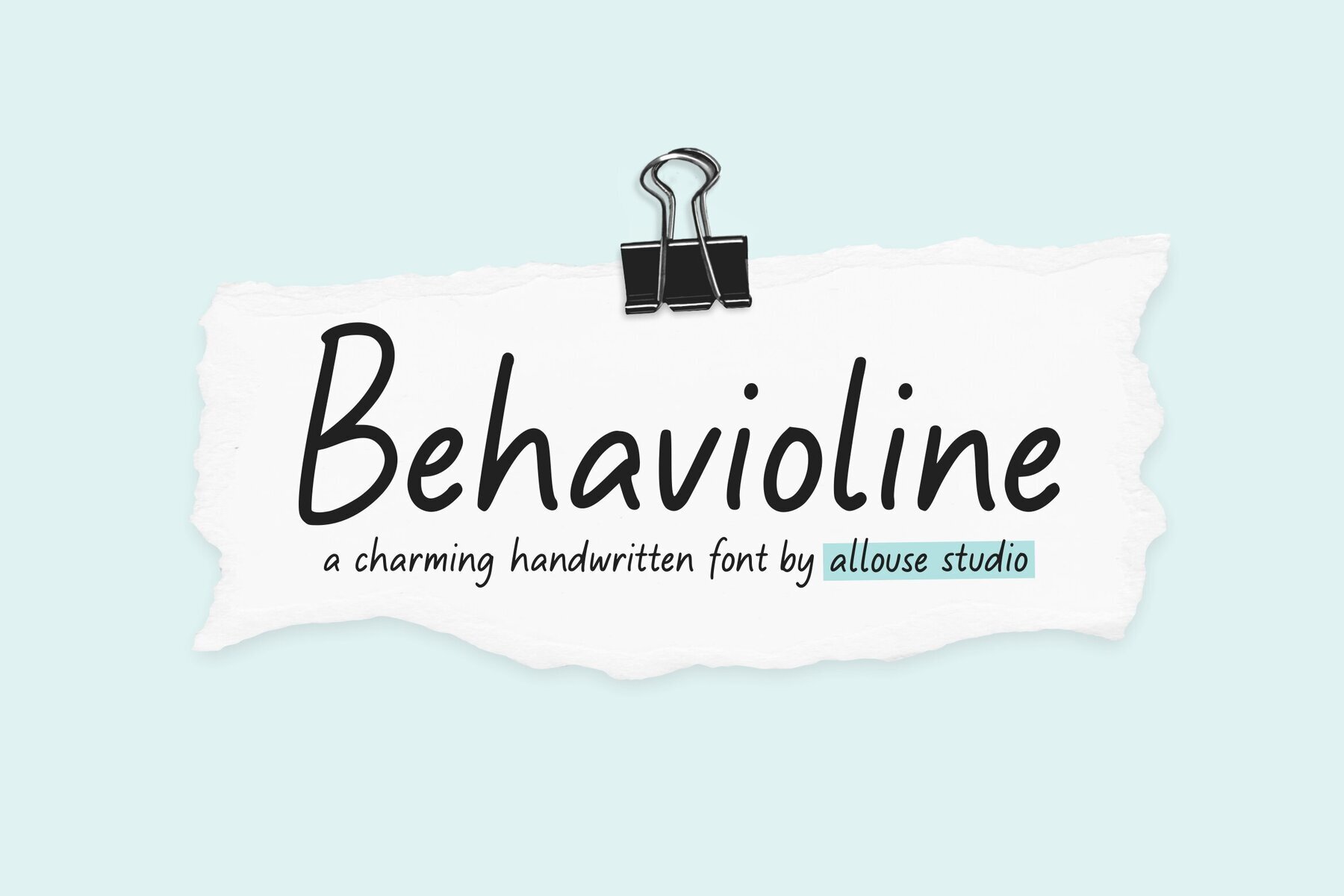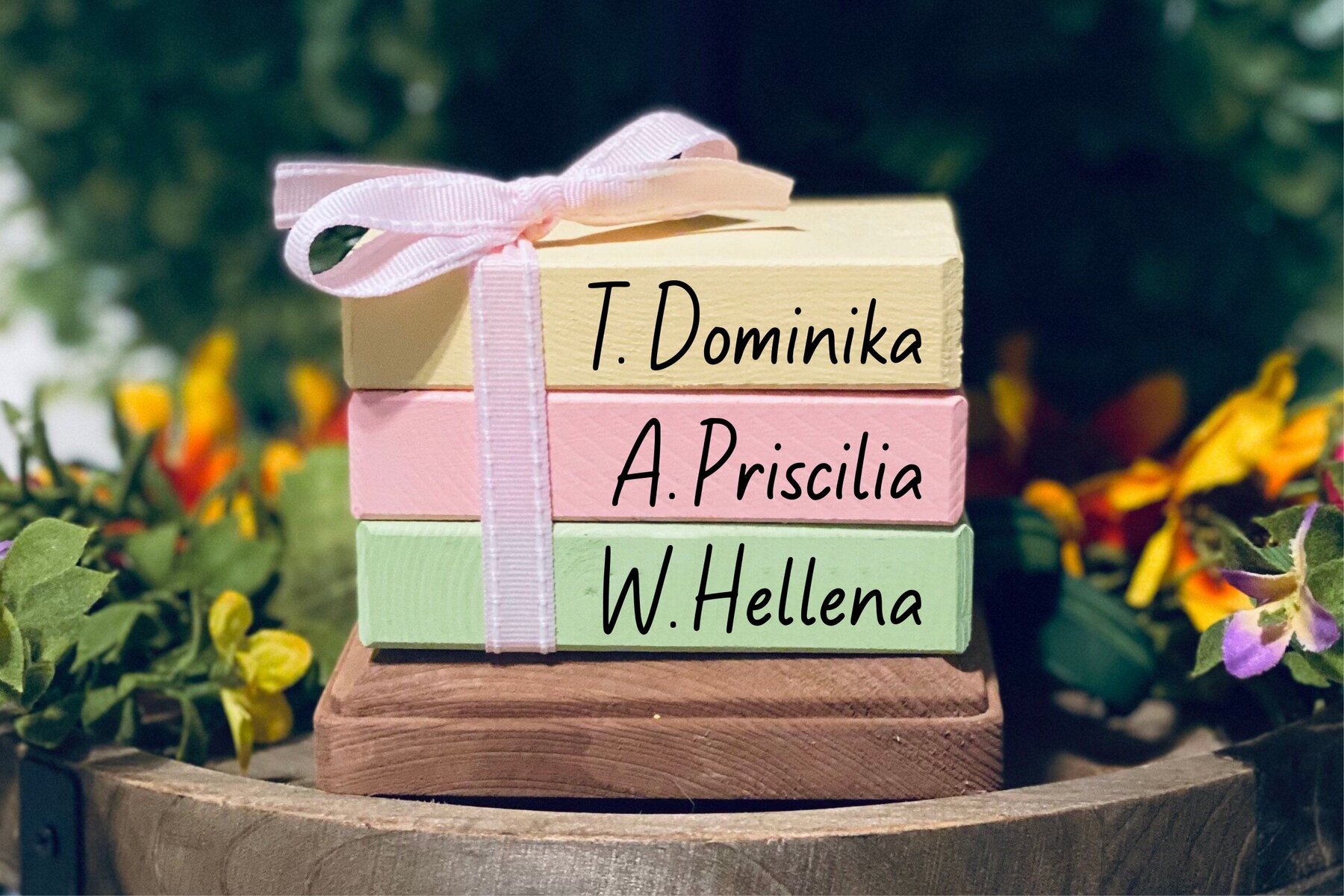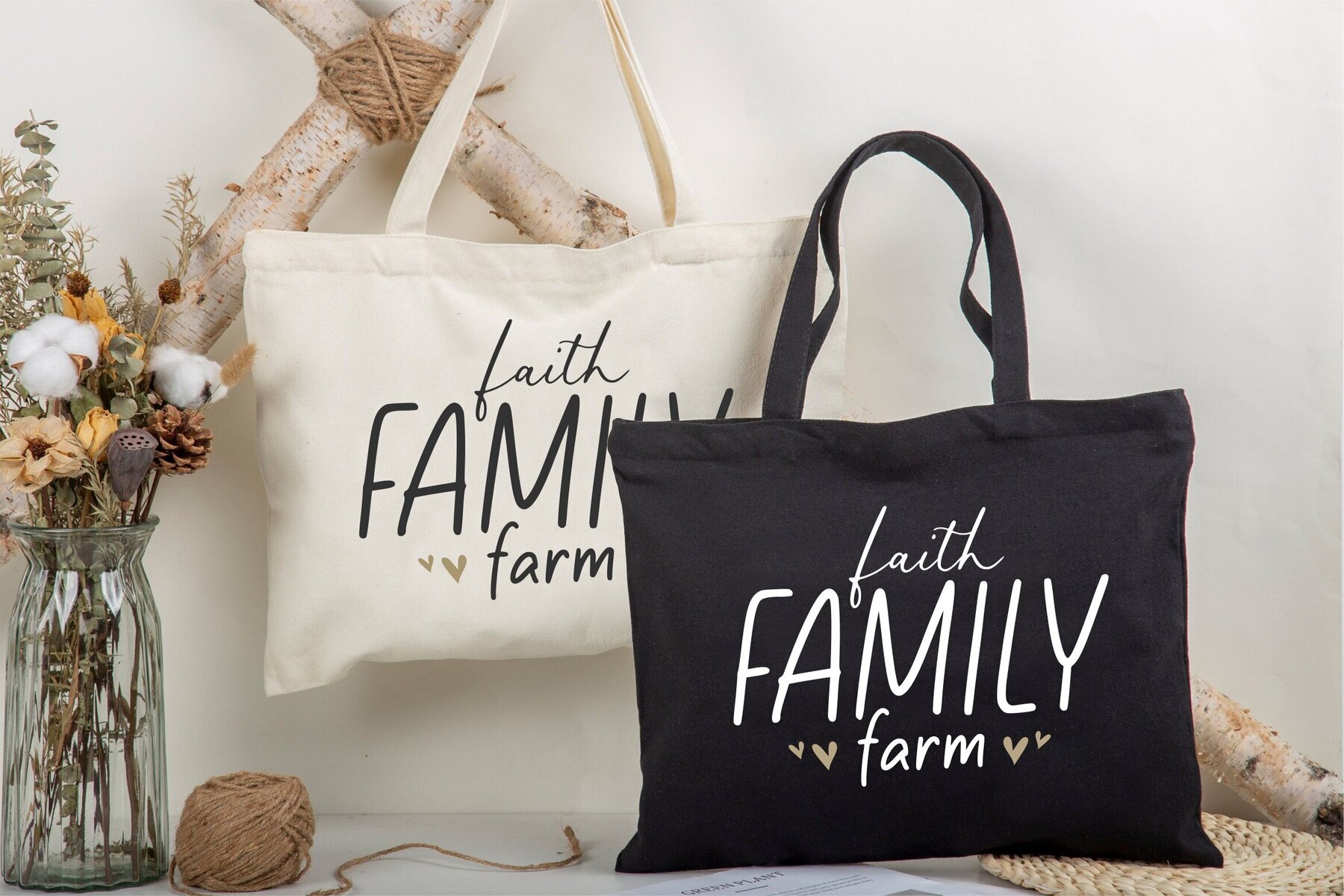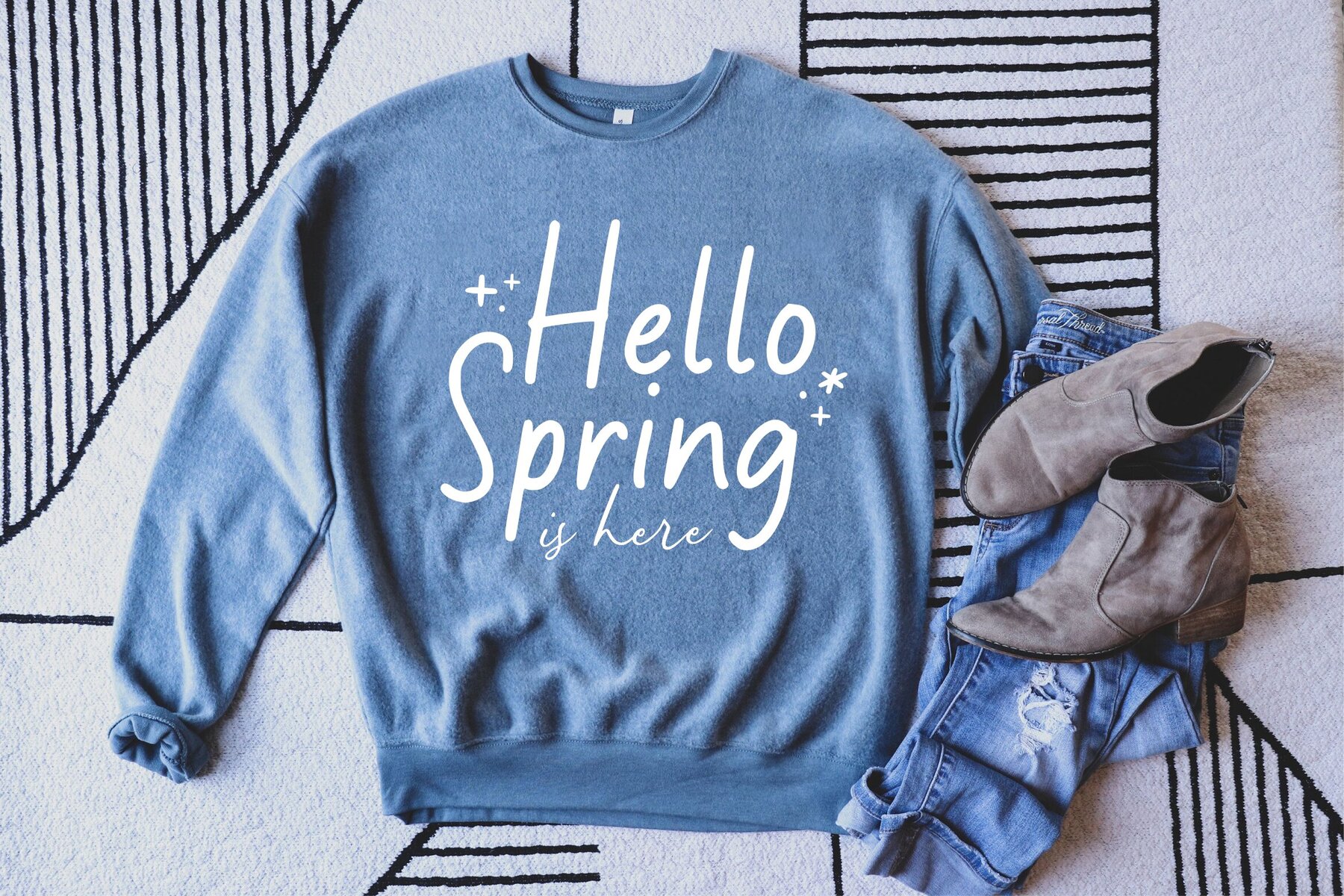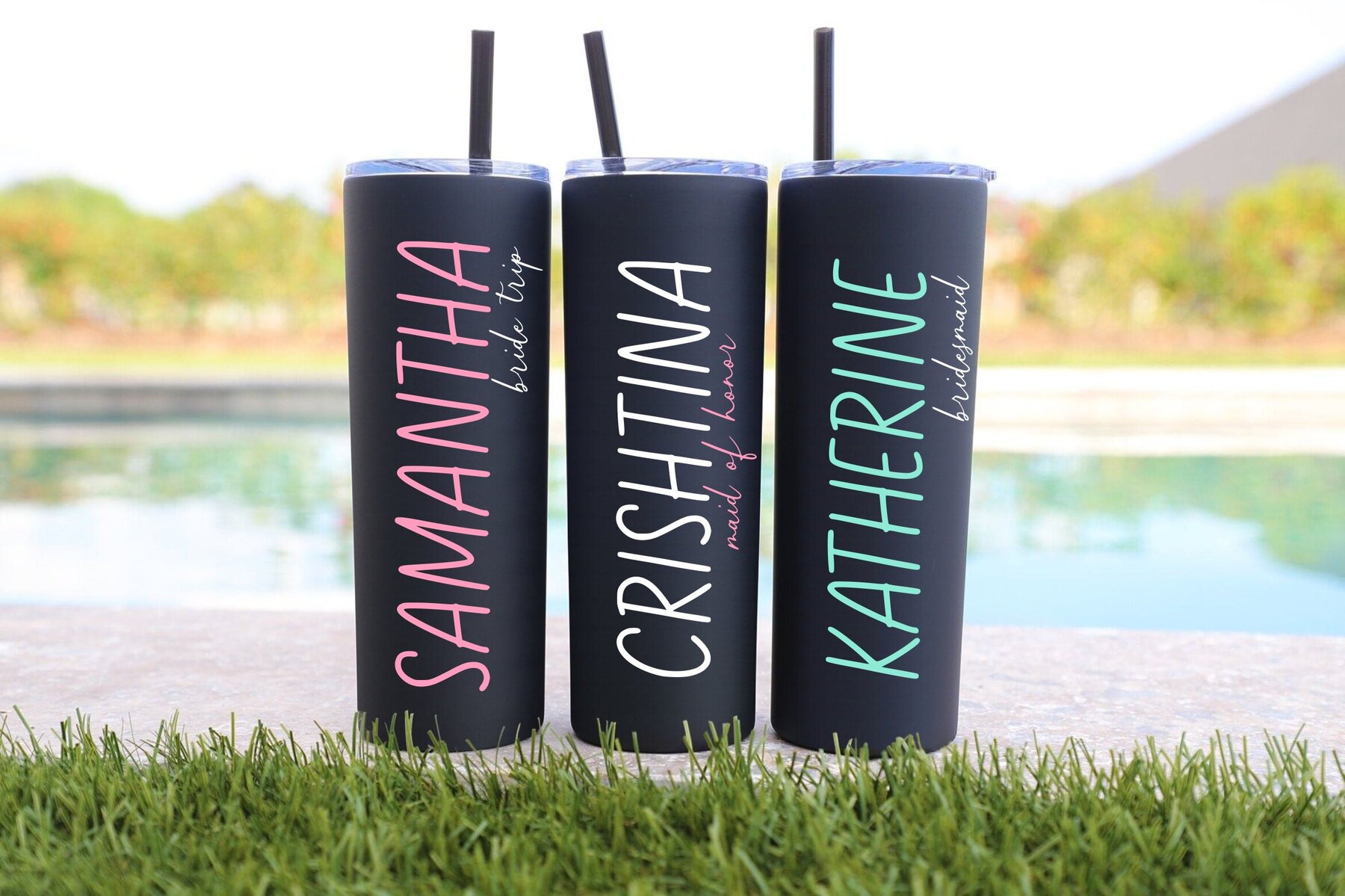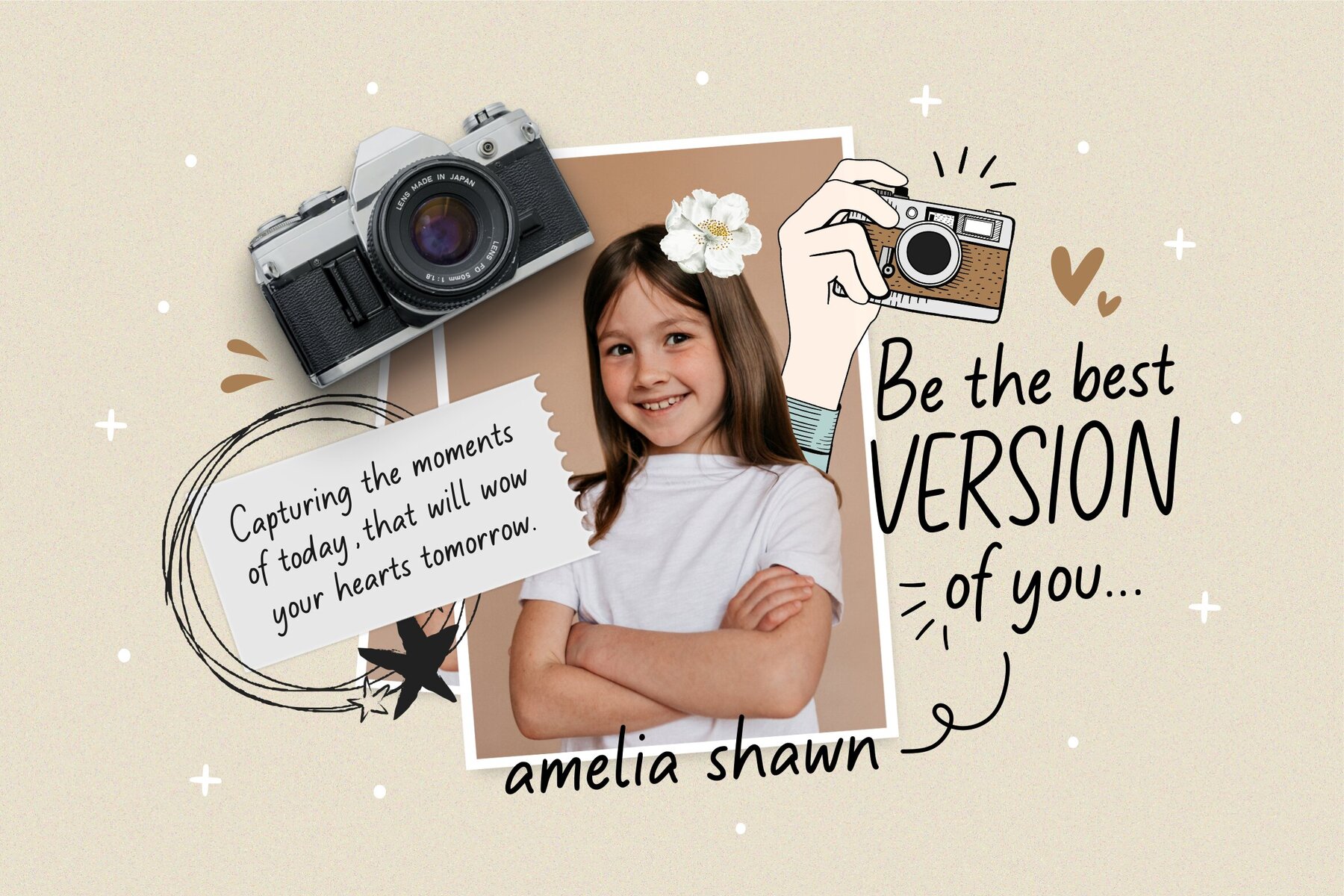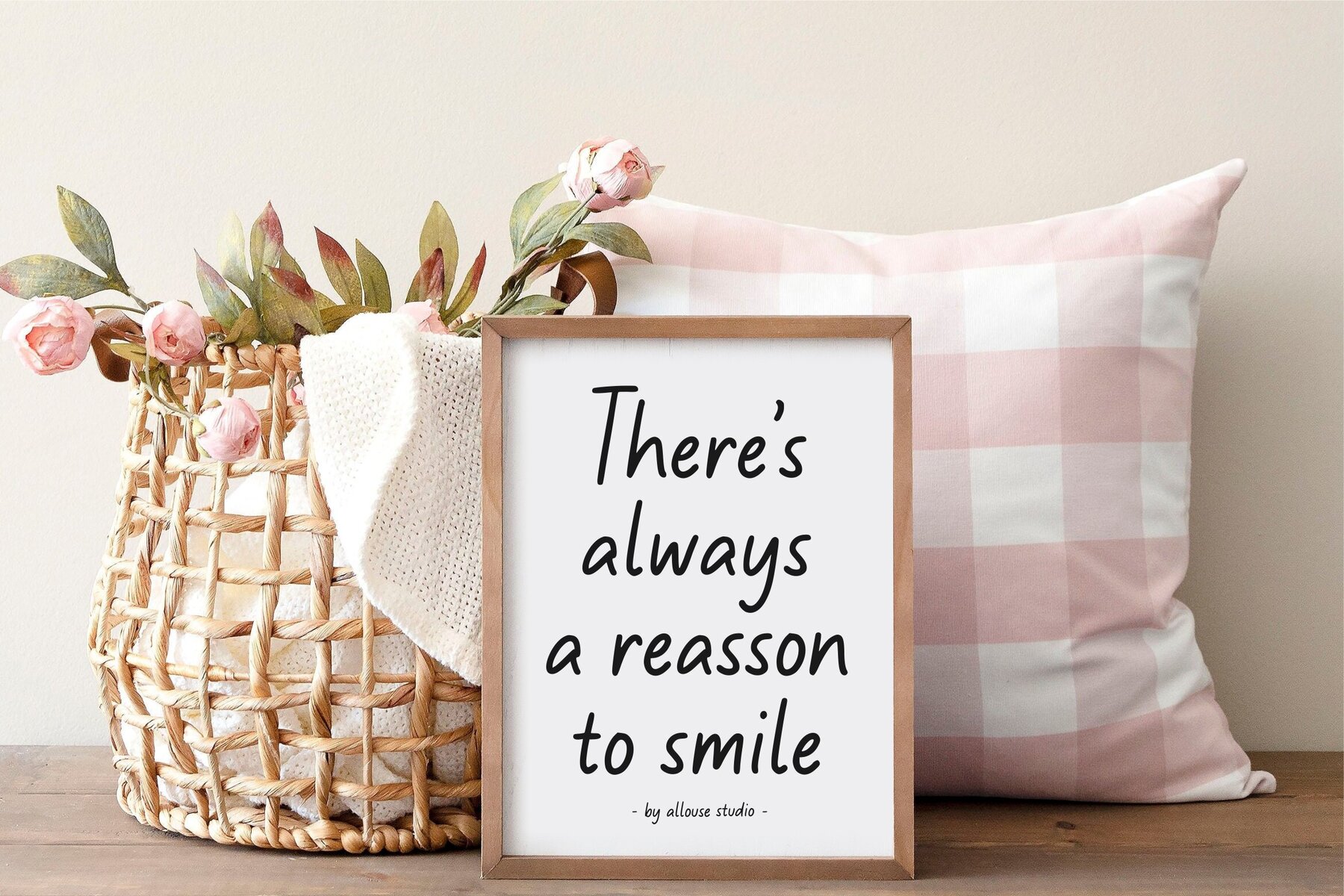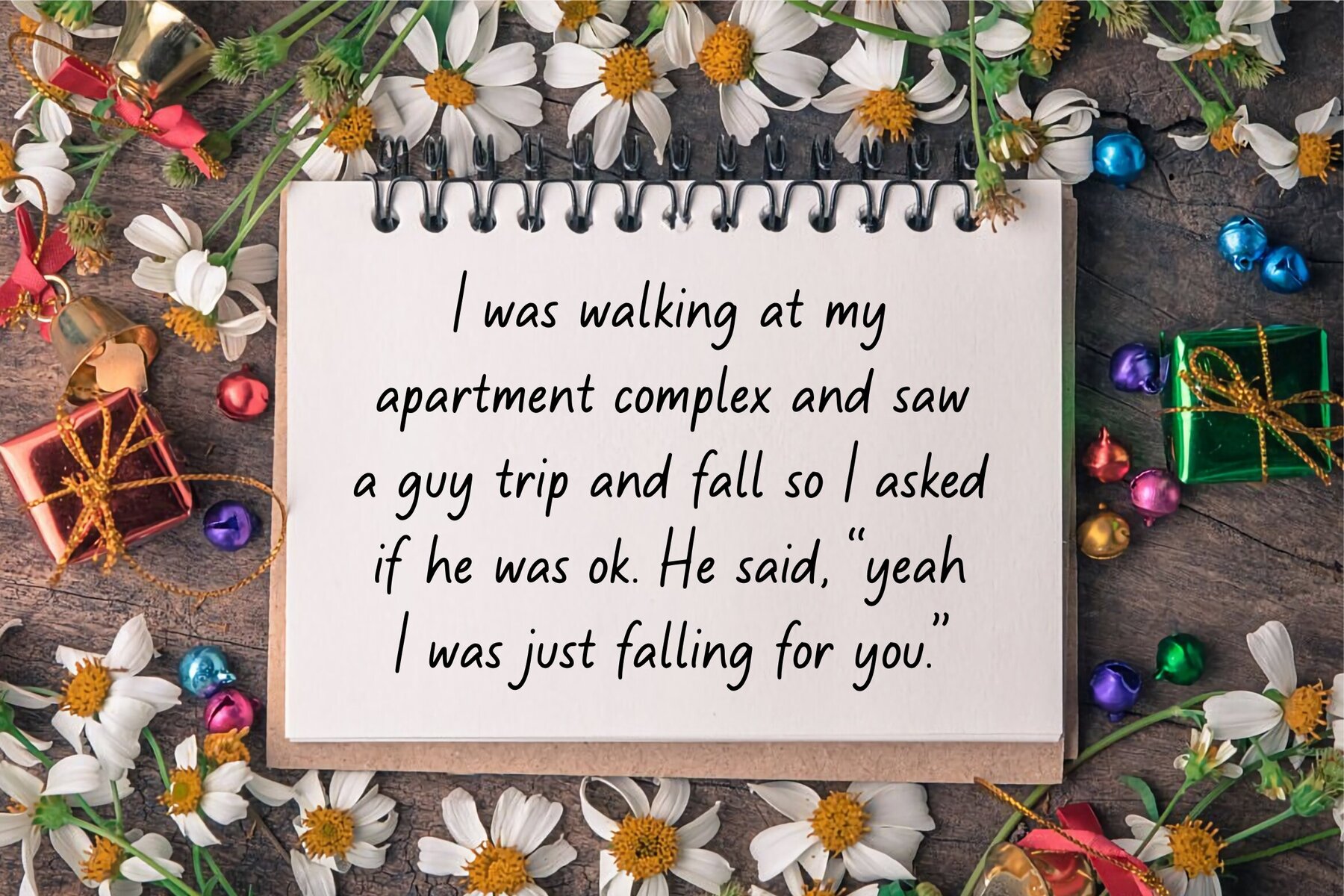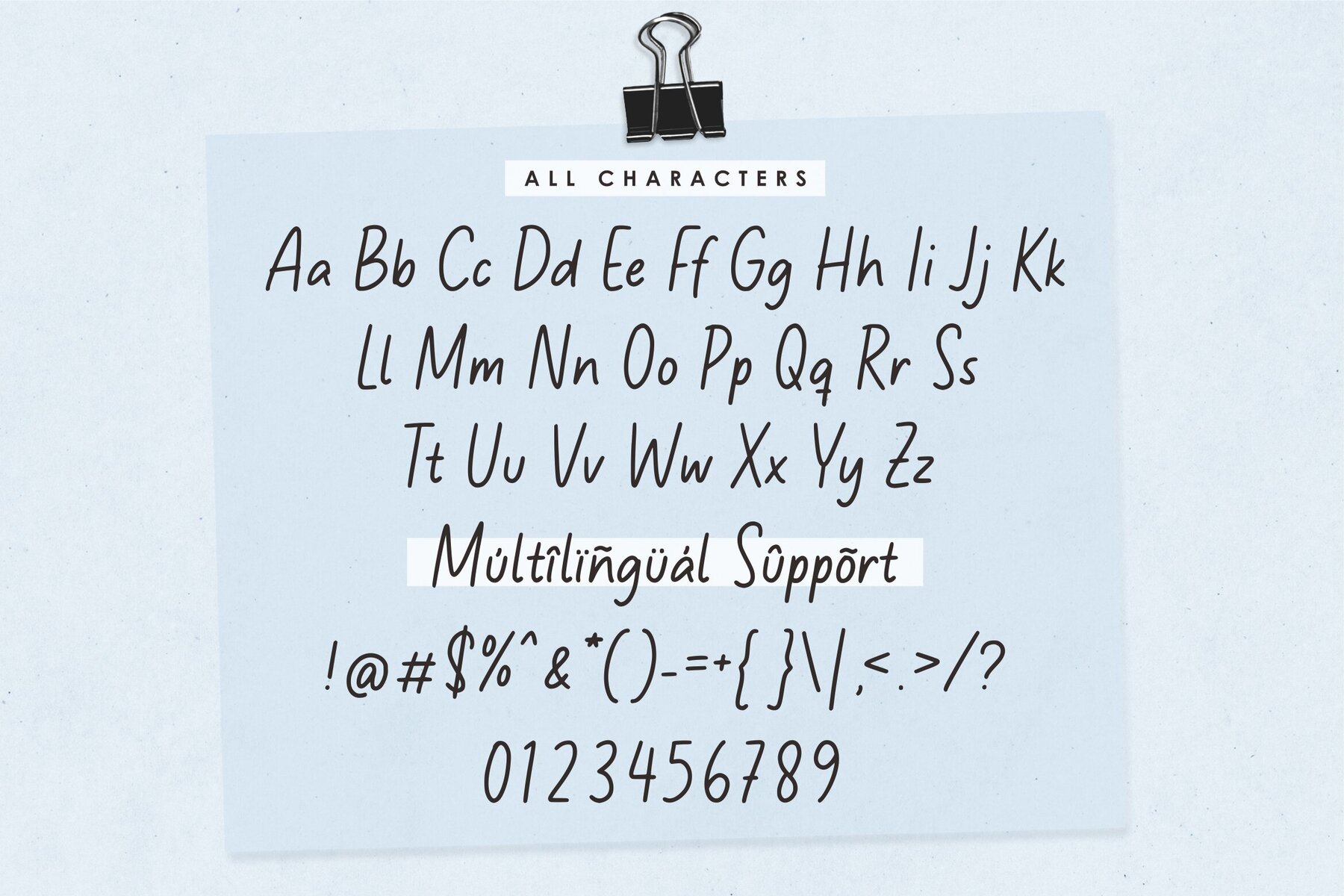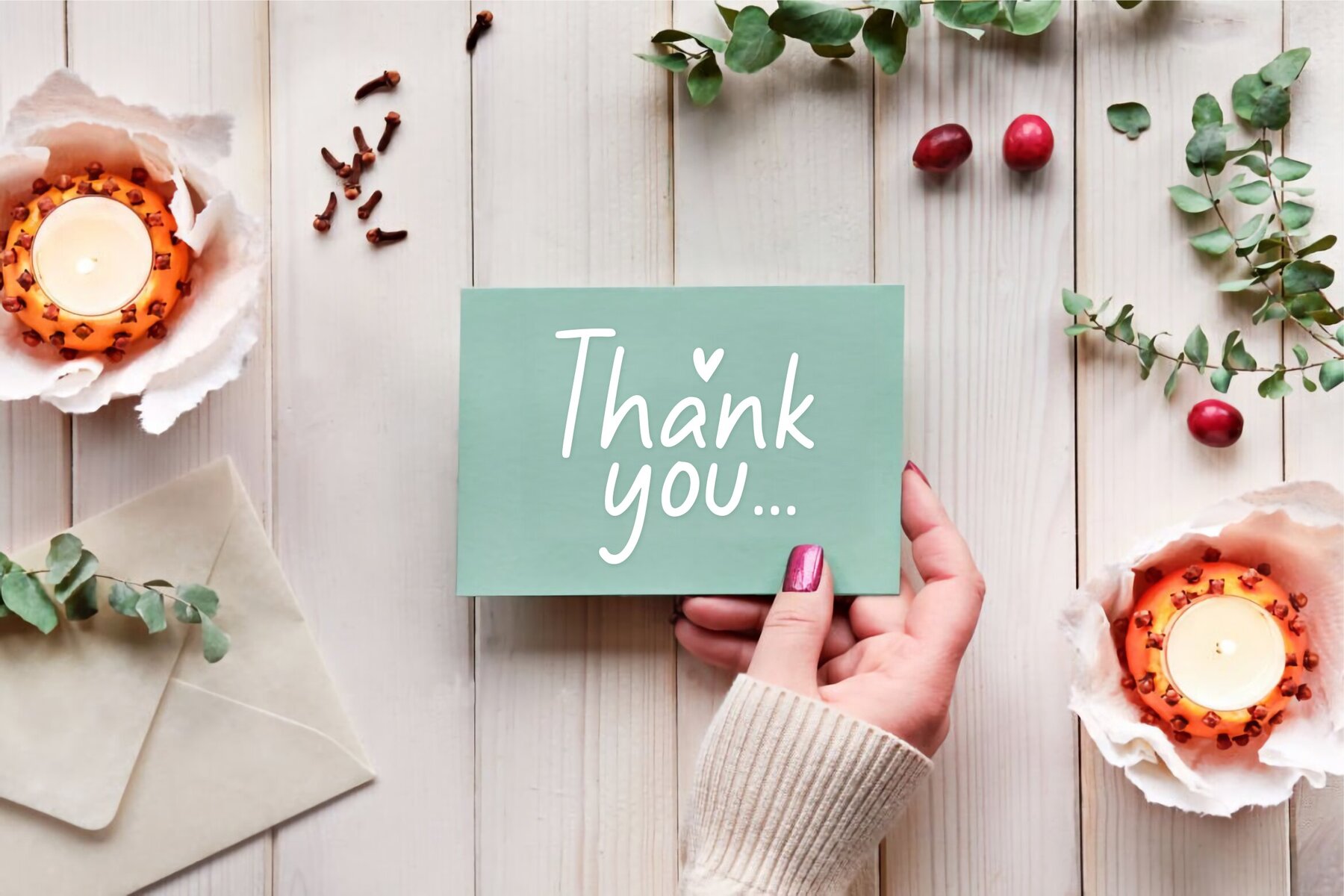
Behavioline Font
Behavioline Regular
Behavioline is a captivating handwritten font ideal for enhancing various creative projects. It seamlessly fits product packaging, branding initiatives, magazines, social media posts, and wedding invitations, adding a personal touch to any text on a background.Behavioline: Charming Handwritten Font